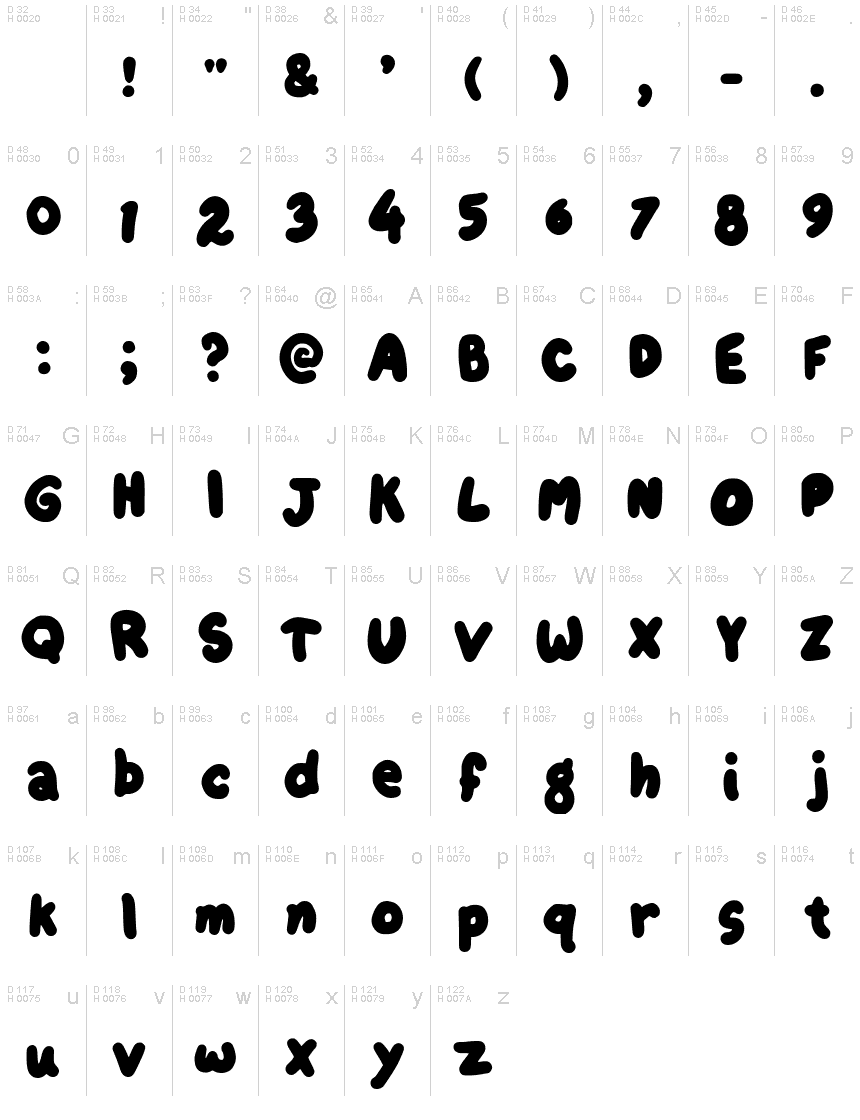
Ftoonk Regular
Ftoonk font is a bold cartoon typeface designed by Mms.
I designed this font to replicate, in visual format, the sound of a rubber ball hitting a middle-schooler in the face during a dodgeball game.
FTOONK!
I designed this font to replicate, in visual format, the sound of a rubber ball hitting a middle-schooler in the face during a dodgeball game.
FTOONK!